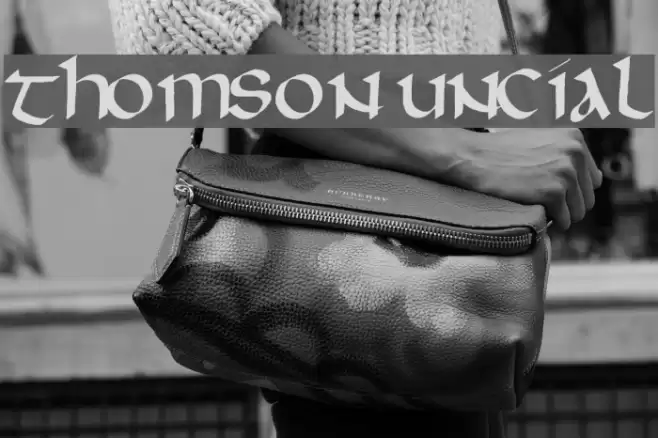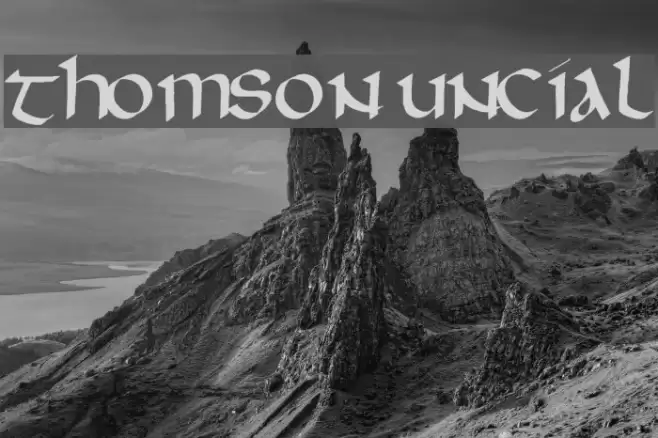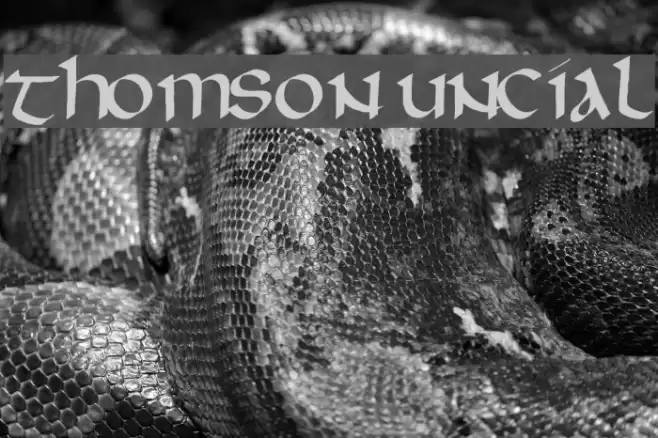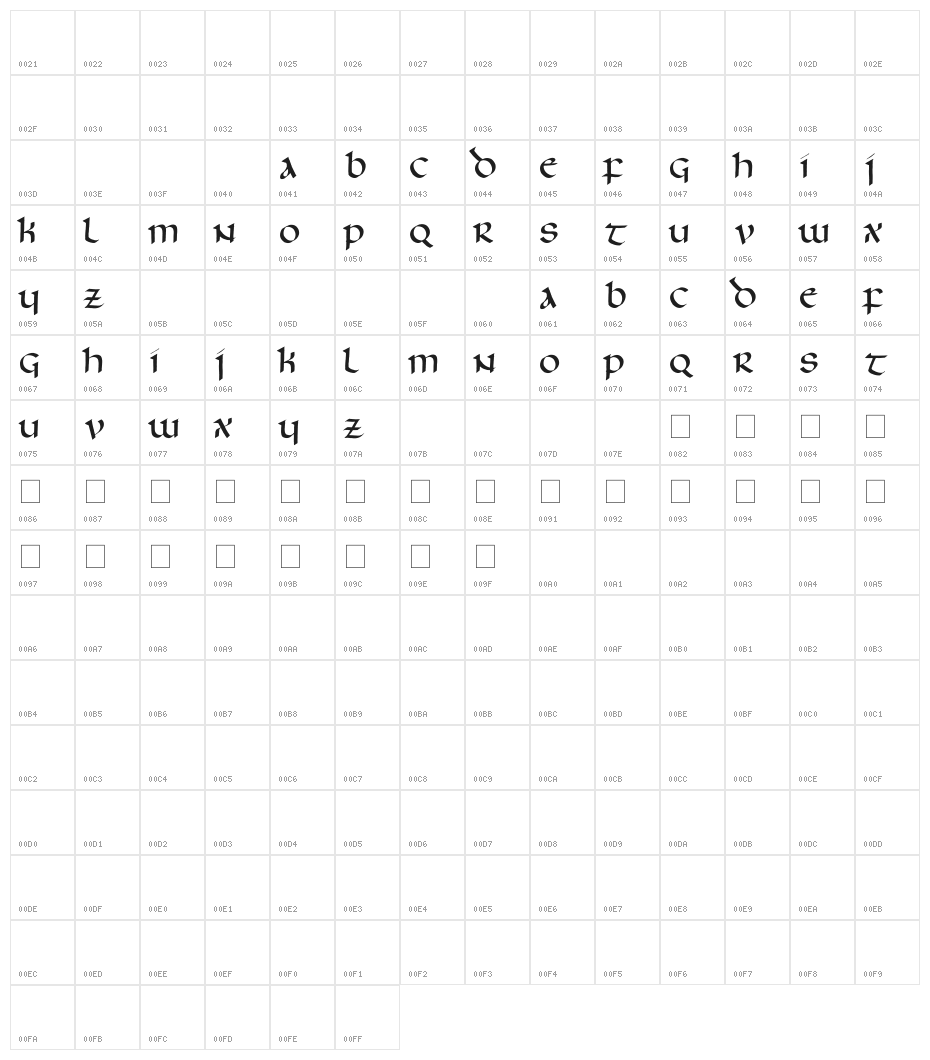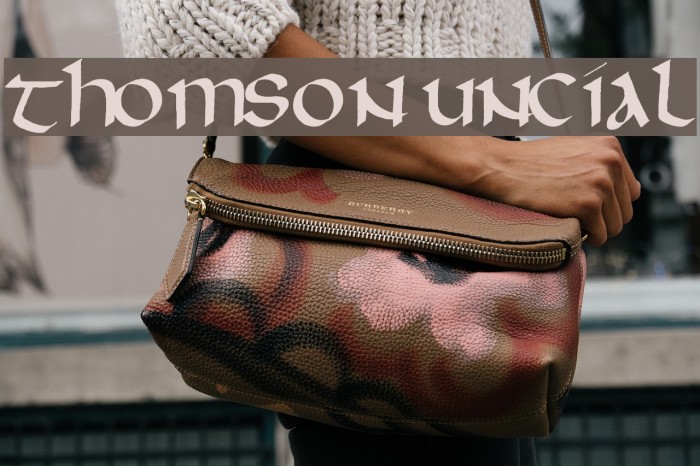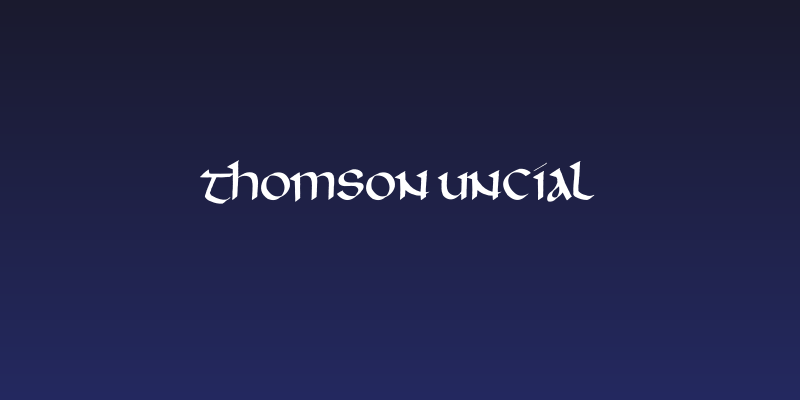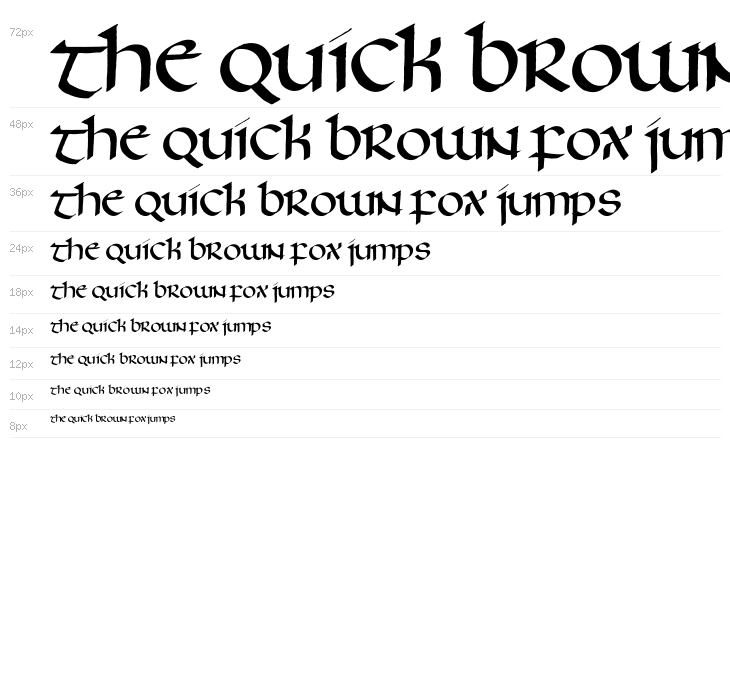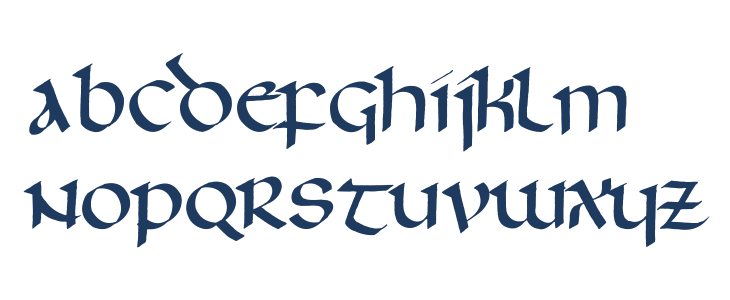
Thomson Uncial Font
Thomson Uncial Description
This font exudes a historical and medieval charm, characterized by its distinctively ornate and flowing letterforms. The strokes are bold and angular, with a calligraphic influence that gives it a unique, old-world aesthetic. The uppercase letters are particularly striking, with elaborate curves and sharp angles that suggest a sense of tradition and craftsmanship. The lowercase letters maintain this style, offering a cohesive and harmonious look. The font's overall appearance is reminiscent of ancient manuscripts, making it ideal for projects that require a touch of historical authenticity.
A medieval-inspired font with bold, ornate, and angular letterforms from Uncategorized fonts.
- Proposed Projects: Ideal for historical documents, fantasy novels, themed event invitations, and branding for medieval-themed businesses.
- Overall Style: Vintage
- Use Case: Headlines, Logos, Decorative text